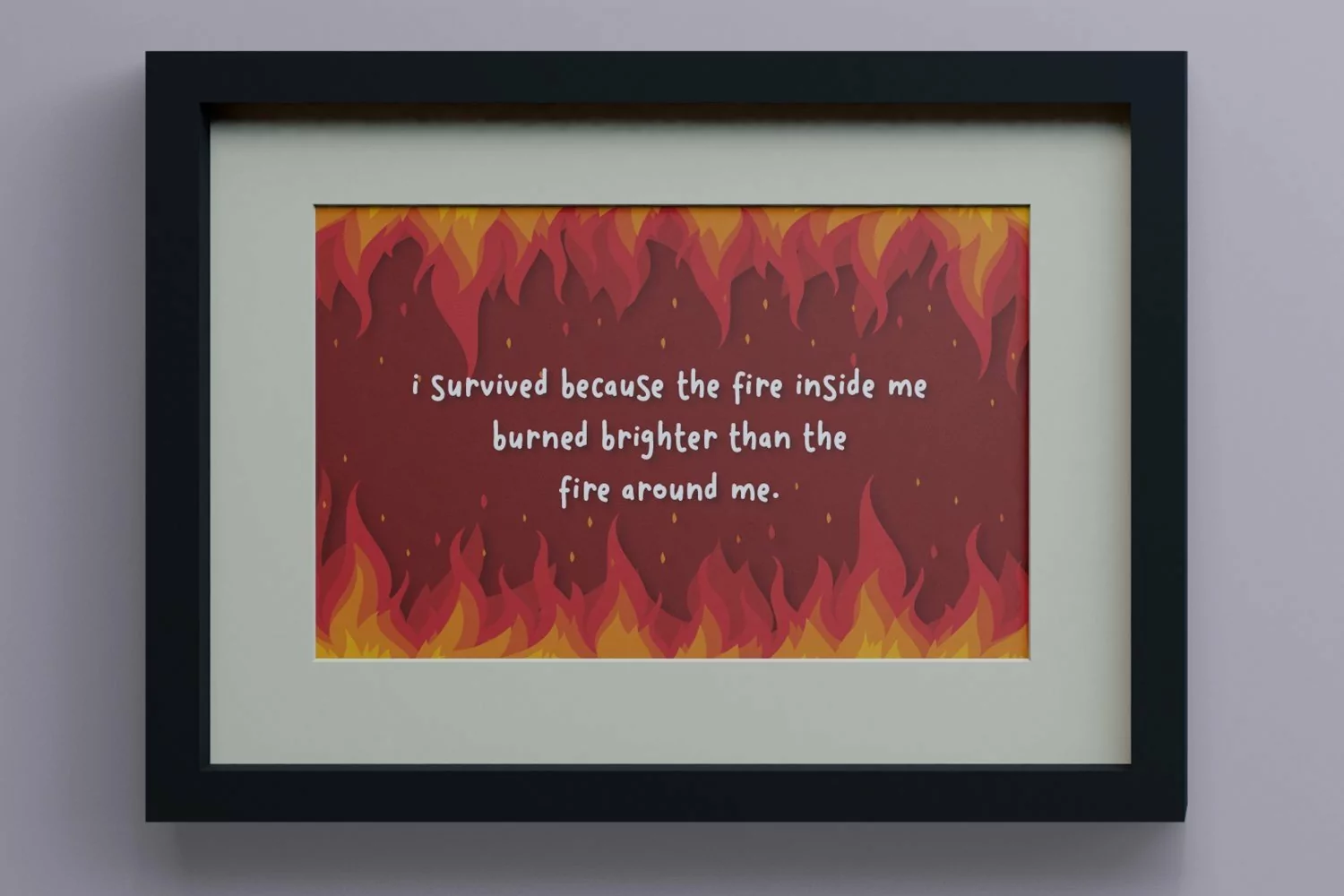
Web Font Redfire
Redfire is a display typeface. Perfect for display, quotes, logo, logotype, labels, poster, branding, merchandise, packaging and many more.